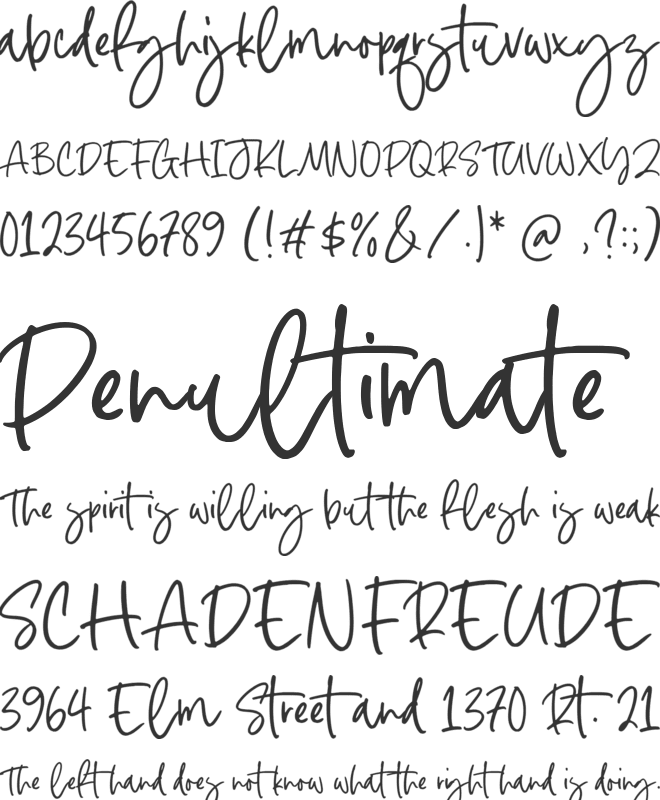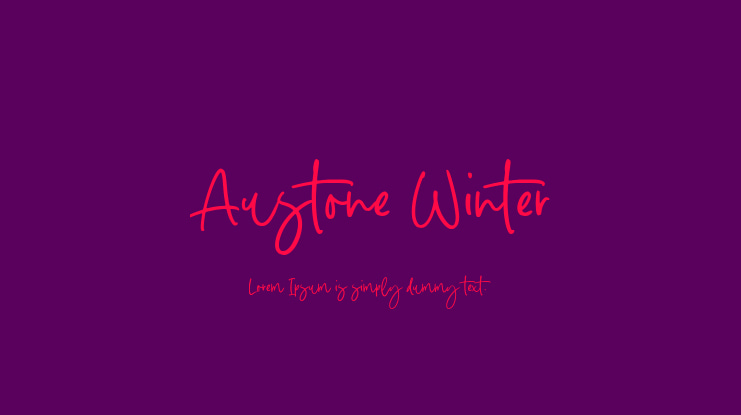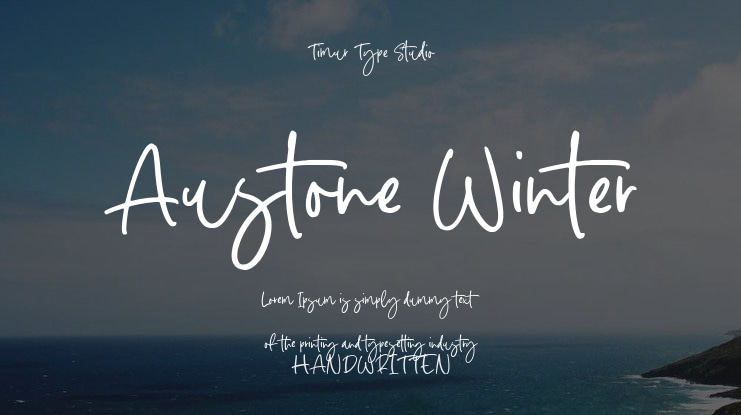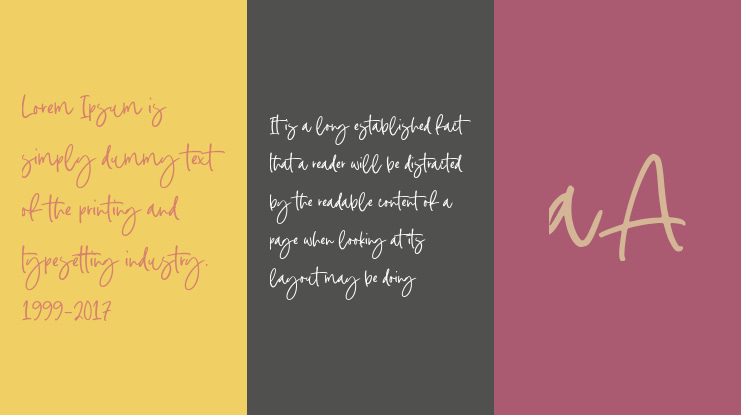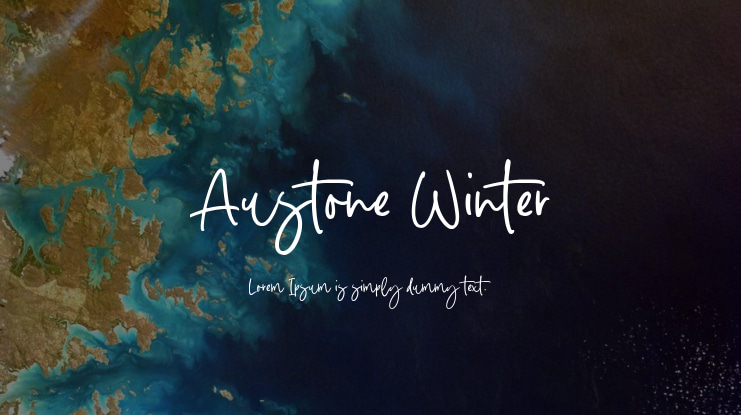
**Introducing Austone Winter by Timurtype Studio!**
Austone Winter is a beautifully crafted Handwritten Script Font that blends the charm of classic calligraphy with a contemporary style. This elegant font, with its flowing cursive strokes and graceful curves, exudes warmth and sophistication. It's ideal for wedding invitations, greeting cards, and seasonal designs. The unique character set, featuring gentle flourishes and well-balanced letterforms, reflects the beauty and tranquility of winter, adding a personal, handwritten touch to your projects.